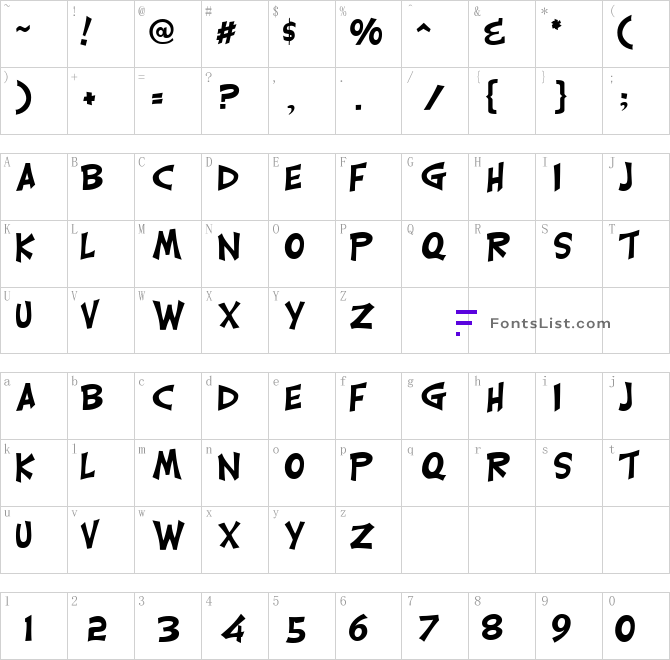
- Font Name:Carlisle
Carlisle-Regular1-.ttf is a very beautiful artistic font, Carlisle-Regular1-.ttf is widely used in the design and printing of various books and pictures,Carlisle-Regular1-.ttf has a strong visual impact,Carlisle-Regular1-.ttf is a commonly used font in newspapers, magazines and books, and is used in posters, e-commerce Poster design, store design, logo design, font design and other fields.Carlisle-Regular1-.